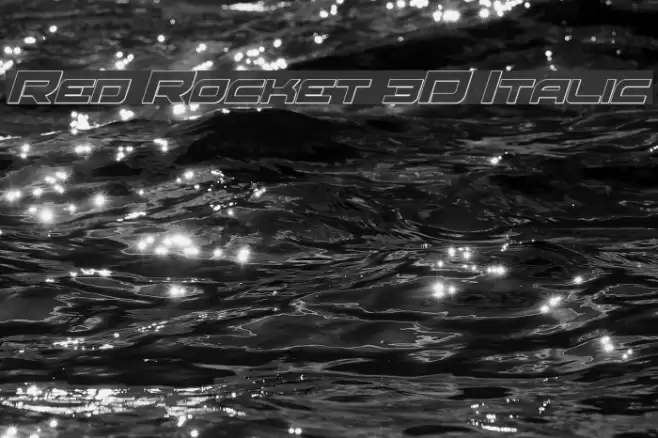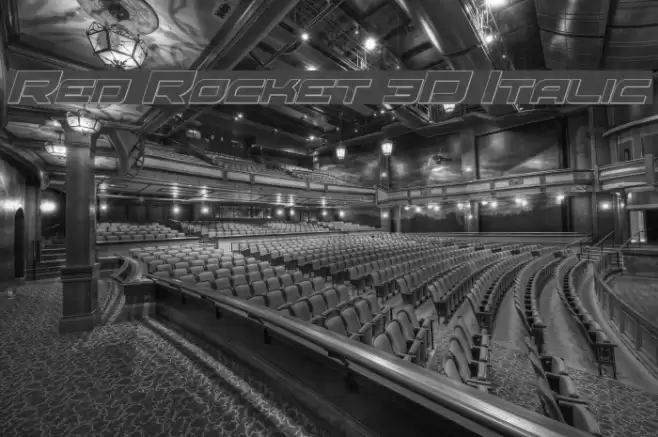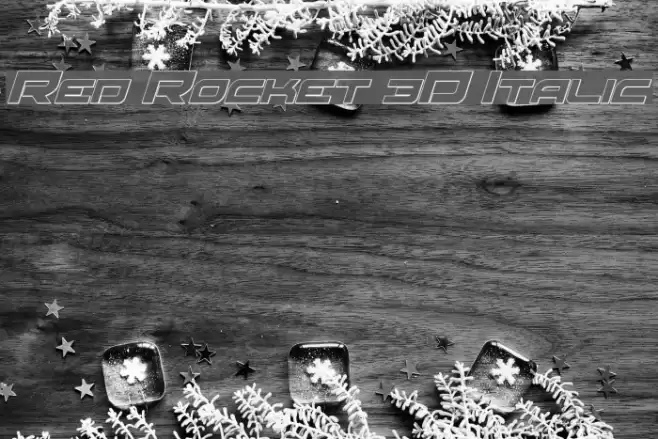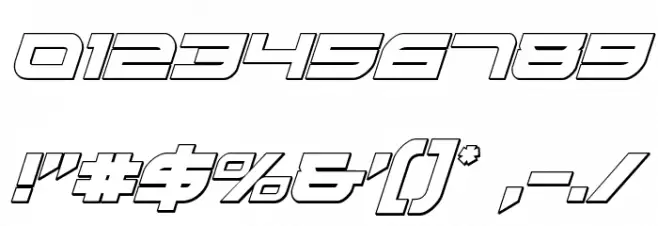
Red Rocket 3D Italic Font
Red Rocket 3D Italic Description
This font features a futuristic and dynamic design with a 3D effect, giving it a sense of depth and movement. The characters are italicized, adding to the sense of speed and modernity. The strokes are bold and consistent, with a geometric structure that emphasizes sharp angles and clean lines. The font's open counters and wide apertures enhance readability while maintaining its unique style. It is well-suited for projects that require a modern and energetic look, such as technology branding, sports team logos, or sci-fi themed designs.
A futuristic, italicized font with a 3D effect and bold geometric lines from Uncategorized fonts.
- Proposed Projects: Ideal for technology branding, sports logos, sci-fi themes, and dynamic posters.